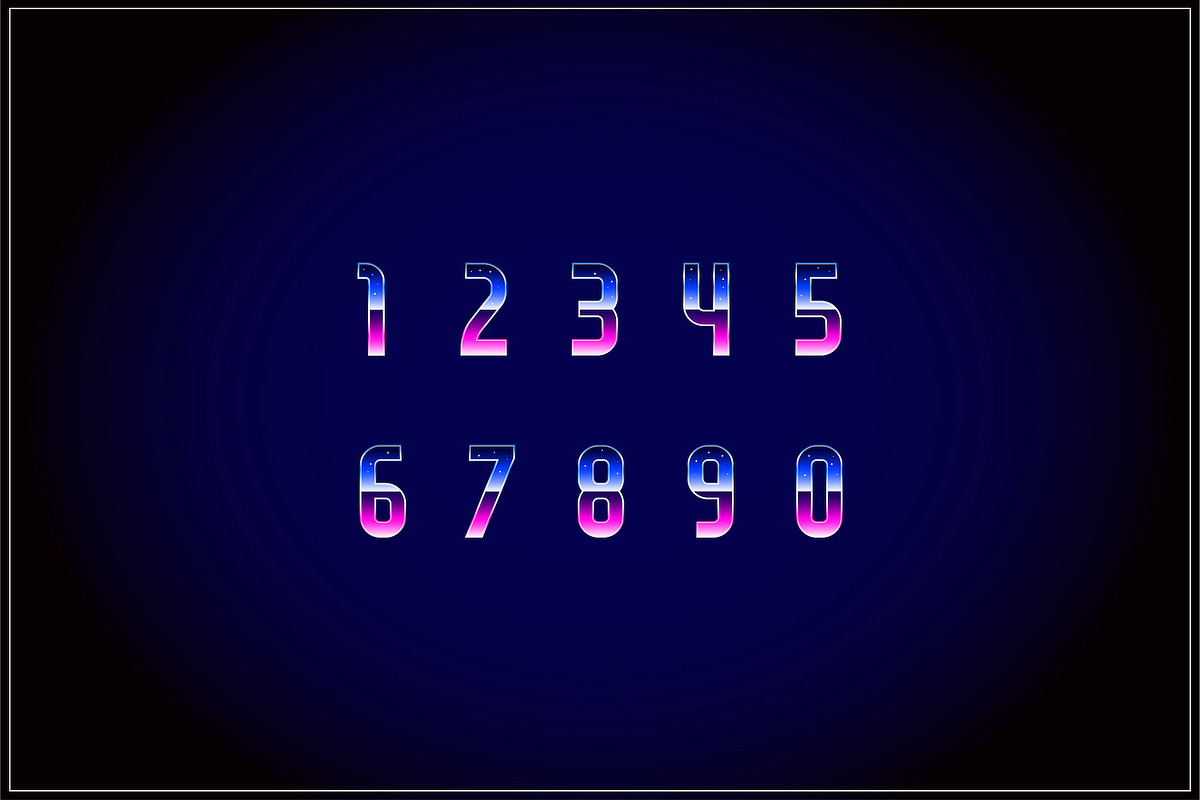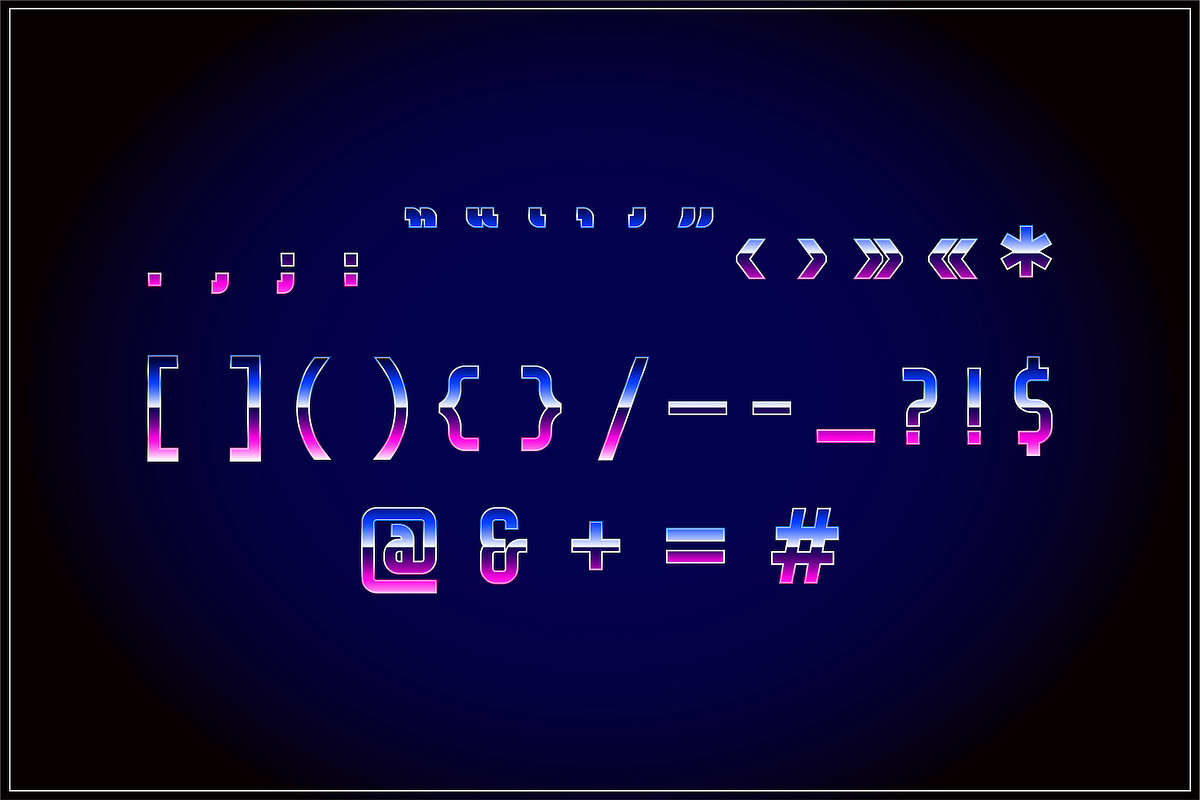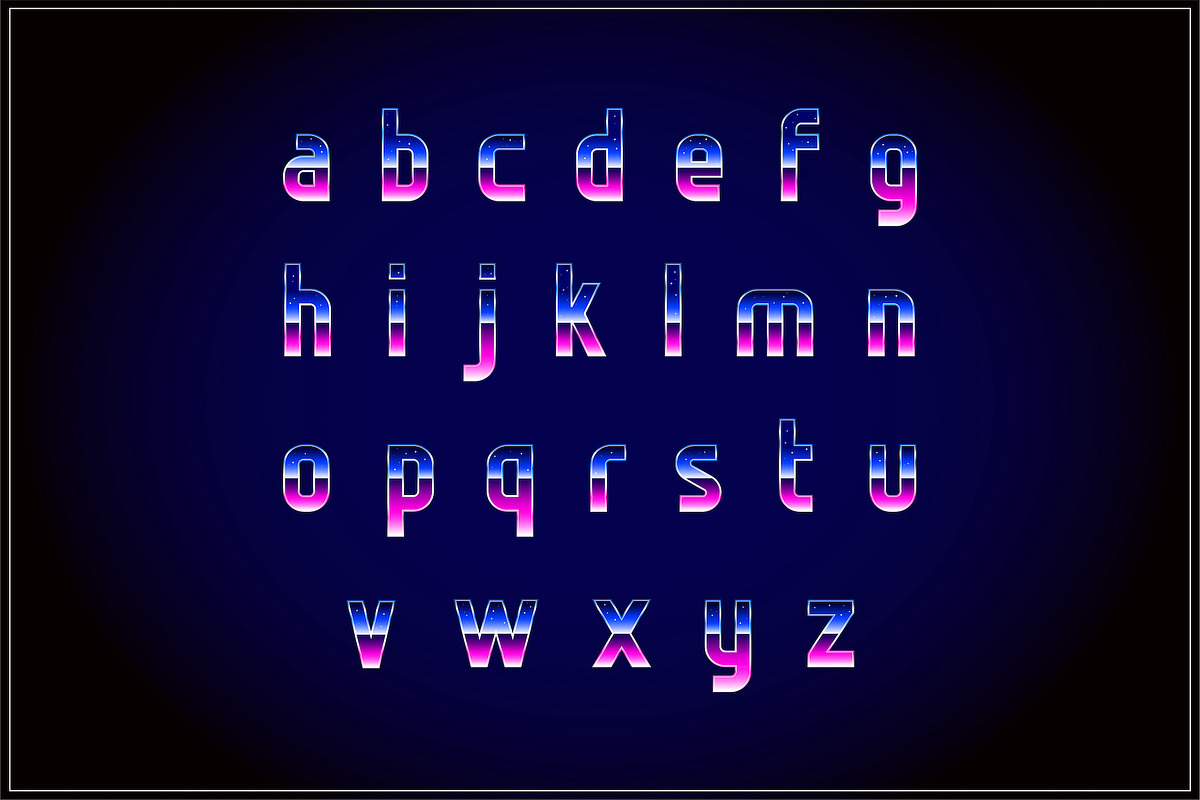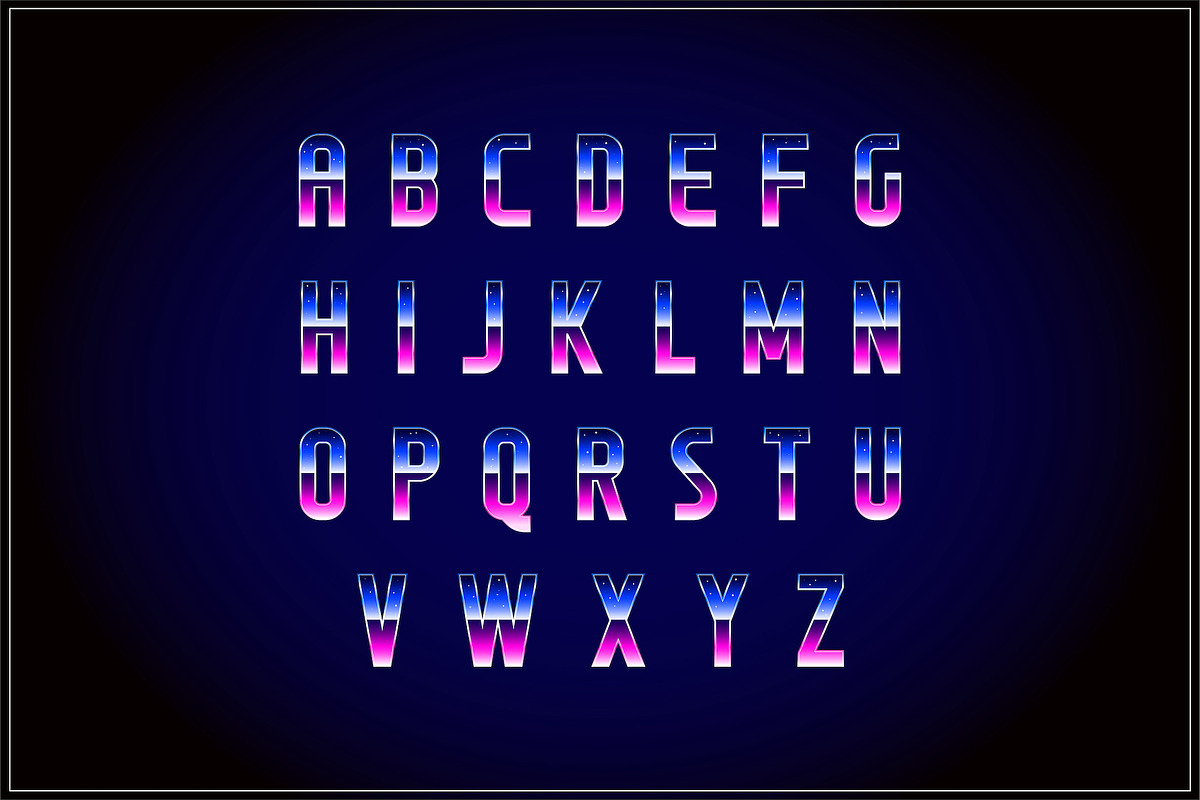
Retrofuturism OTF Vapor Wave Font
This pack contains Retrofuturism trendy Vaporwave, Synthwave, Retrowave Styled Color OpenType Font in .OTF file format with lower-case, symbols and numbers (Adobe Illustrator 2018+). Also this pack contains 4 additional vaporwave backgrounds + 2 sample flyers. Each letter and number also introduced in big size PNGs and PSD's with transparency.
Retrofuturism Color OTF Font (Upper Case, Lower Case, Numbers, Symbols (NEW))
Why Retrofuturism OTF Vapor Wave Font is worth a look
Retrofuturism OTF Vapor Wave Font by Ckybe's Corner fits naturally into Branding, posters, packaging, typography.